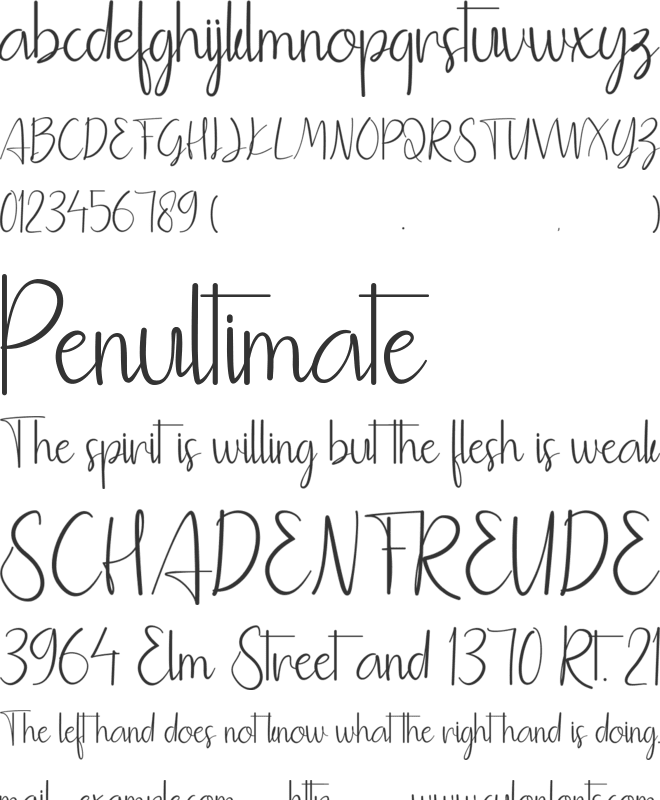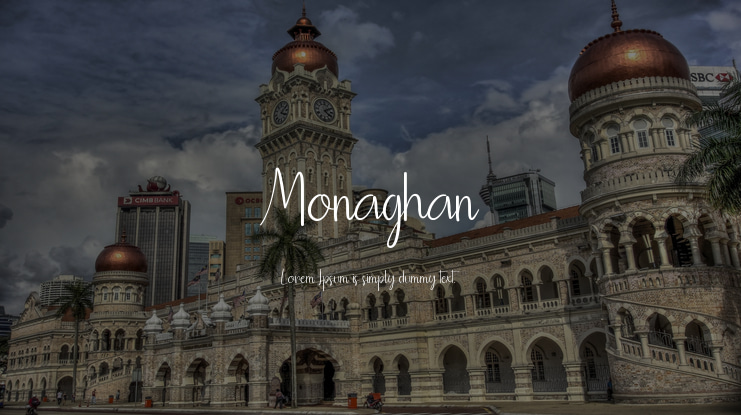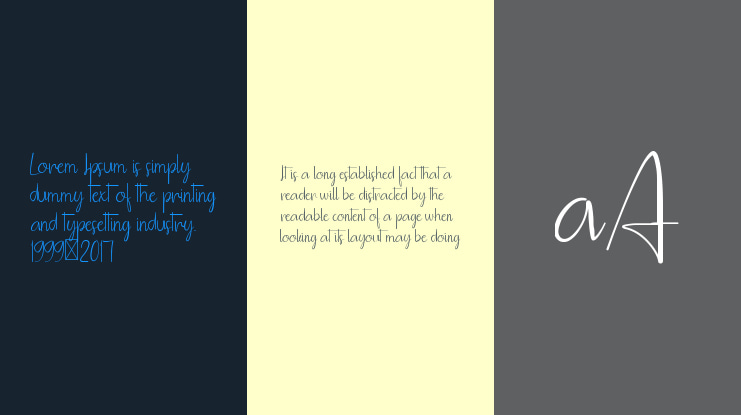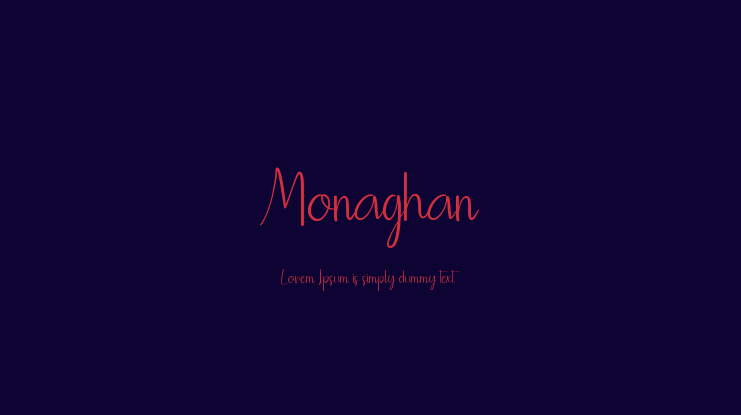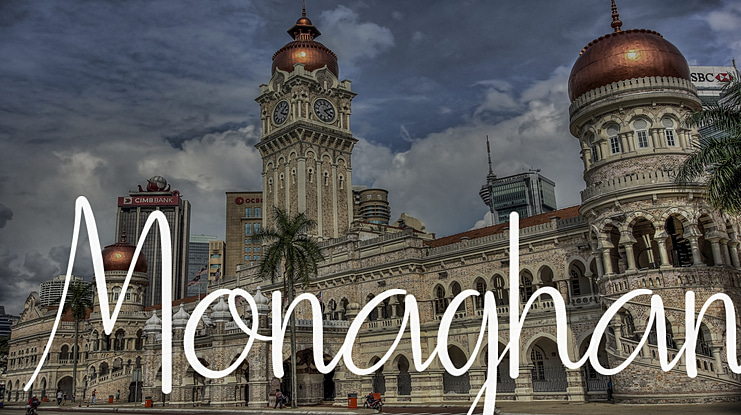
Monaghan Font
Monaghan is a handwritten font, with sweet touches and beautiful curves on each letter. This font is great for your next creative project.